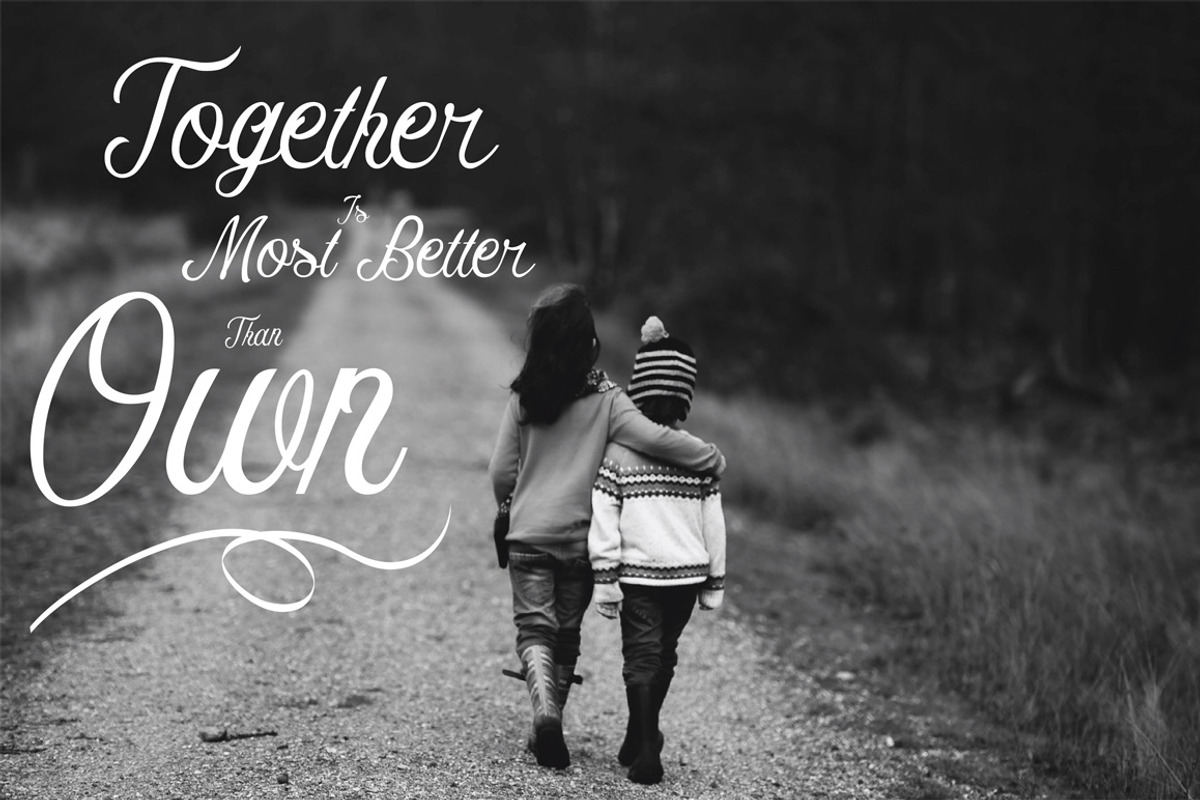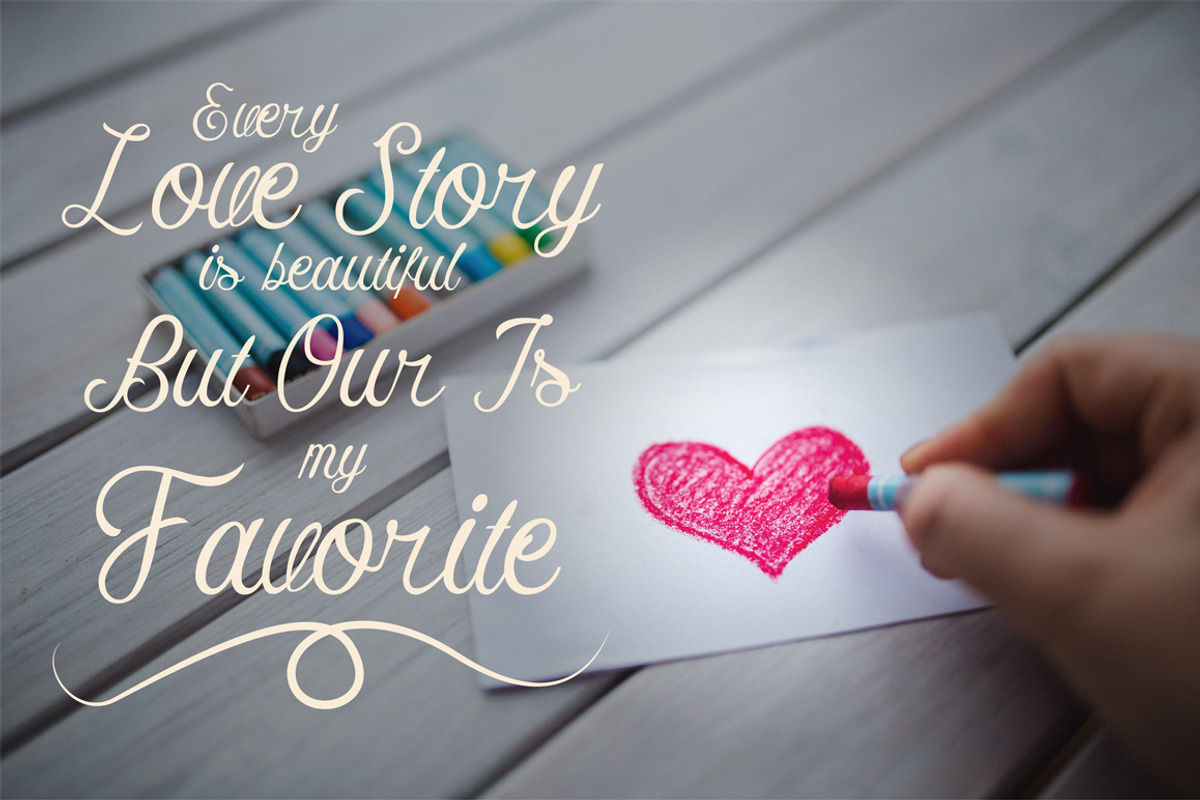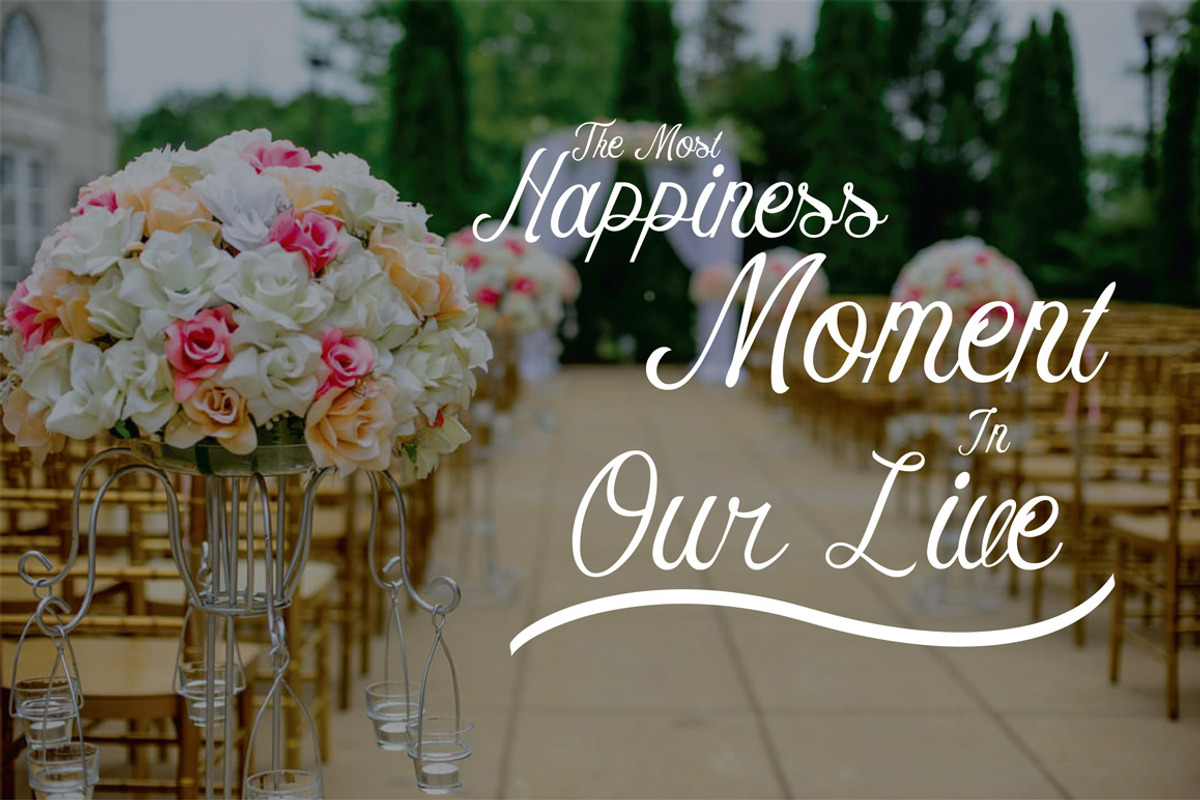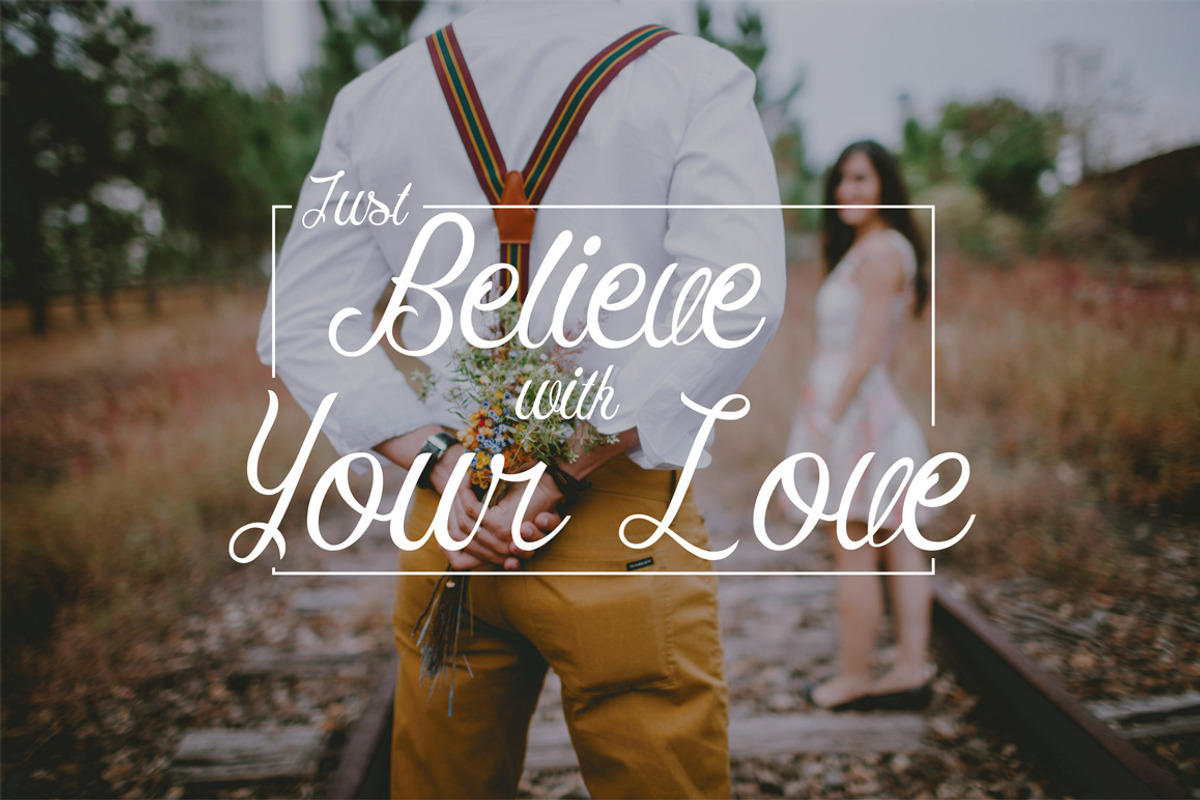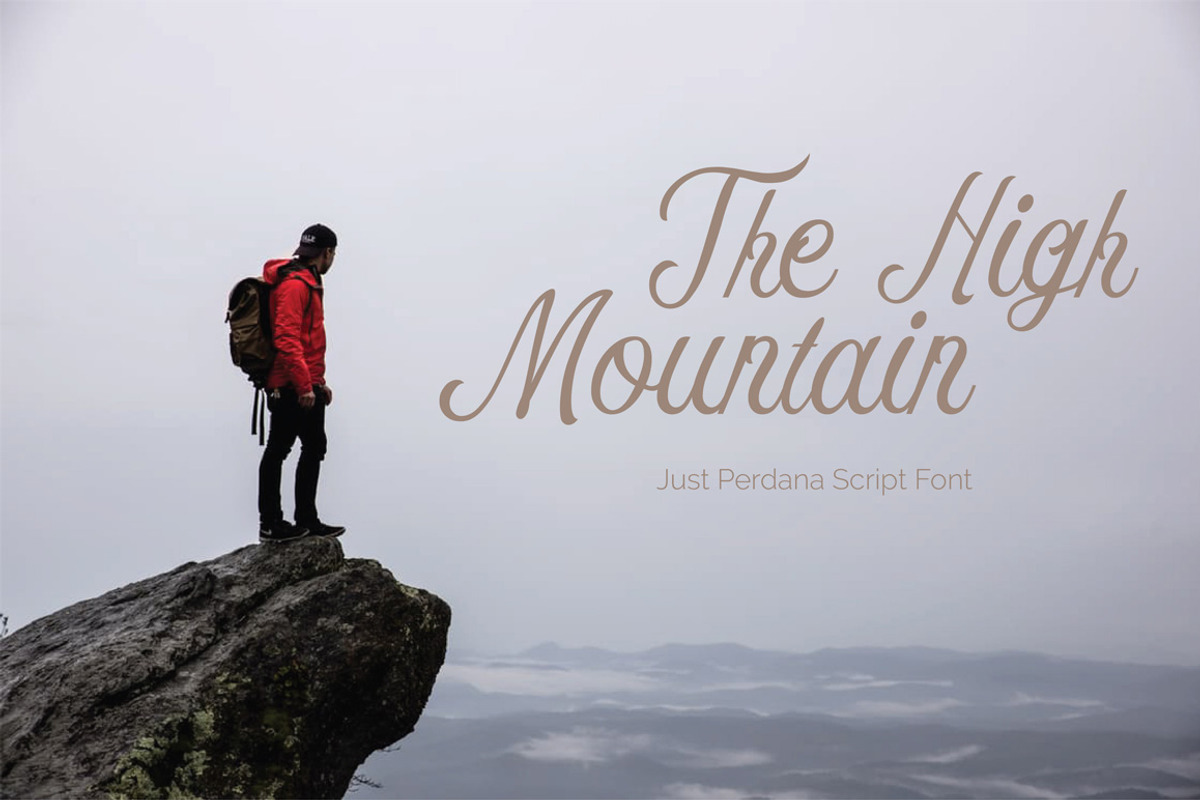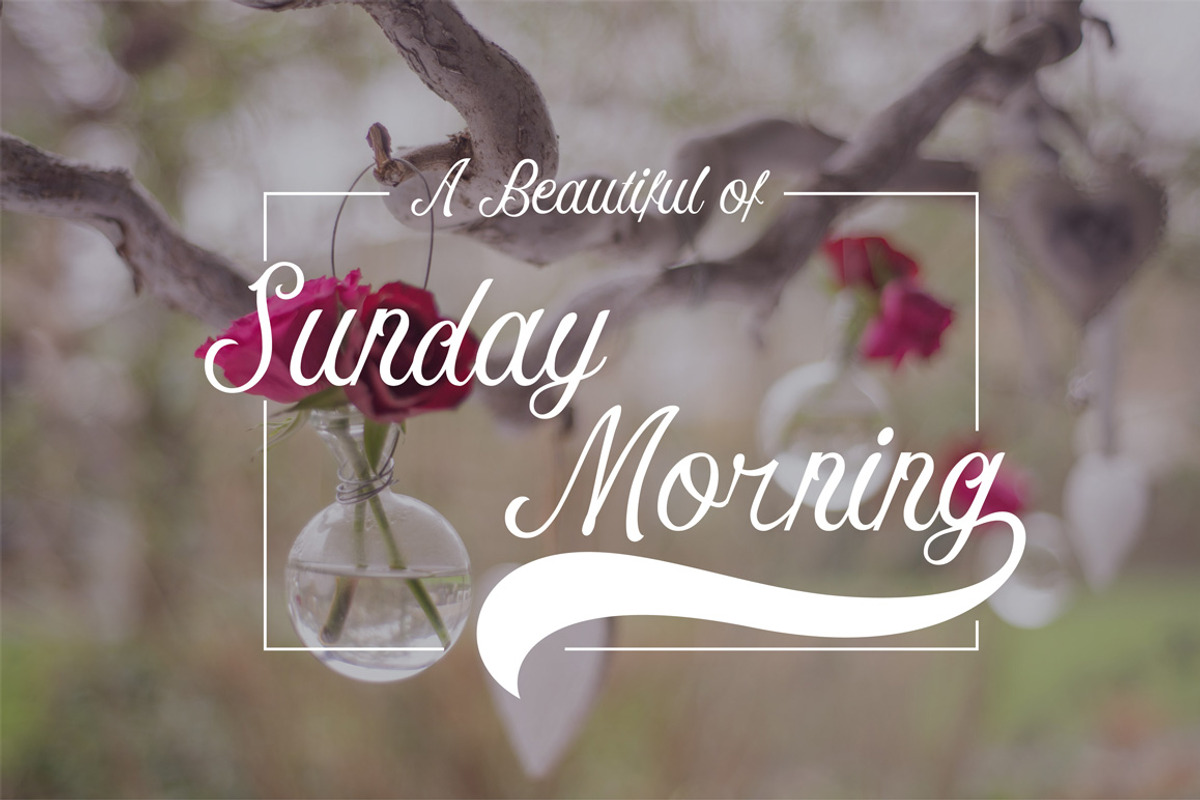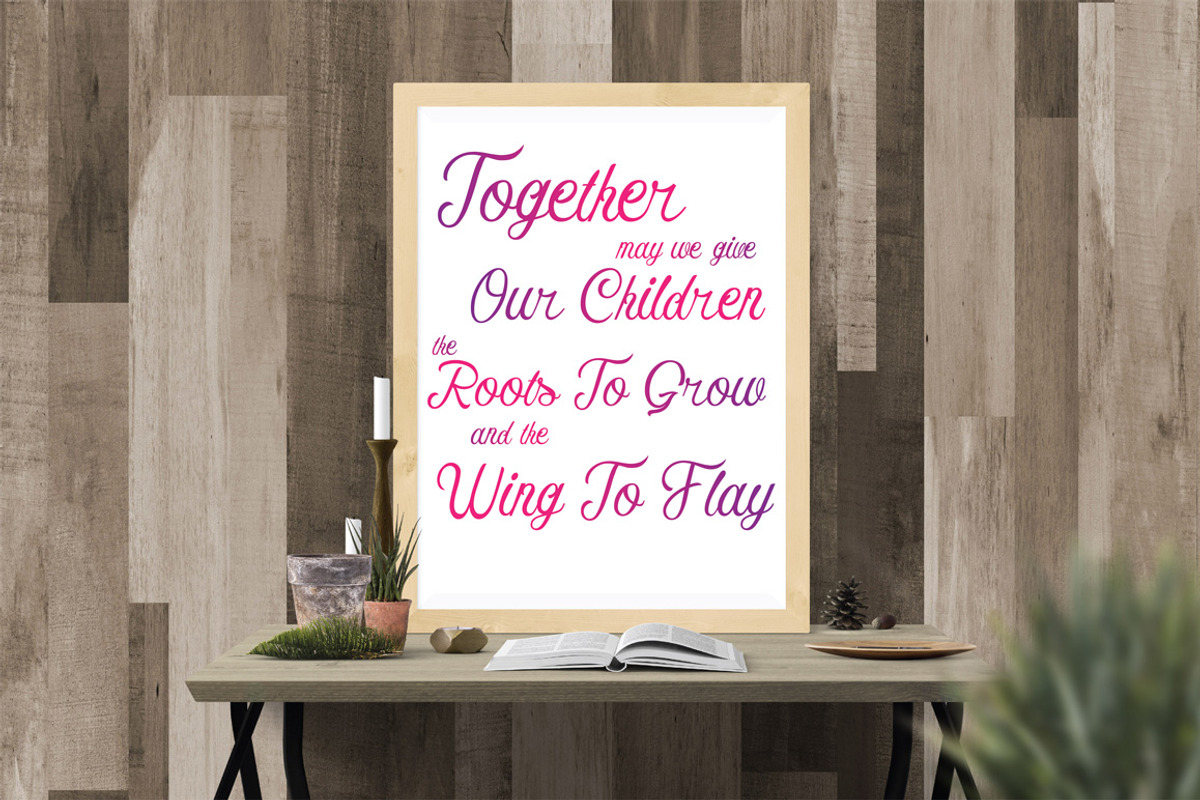
Perdana Hand Script Fonts
Perdana Hand Script Fonts by Artha Desain is a font selected for branding, posters, packaging, typography.
- Use Perrdana Hands Script to make a elegant logo, package design, shirts, invitations, and so much more.
- Swash in this font is not included it just presentation only.
- Use Perrdana Hands Script to make a elegant logo, package design, shirts, invitations, and so much more.
- Swash in this font is not included it just presentation only.
Why Perdana Hand Script Fonts is worth a look
Perdana Hand Script Fonts by Artha Desain fits naturally into Branding, posters, packaging, typography.